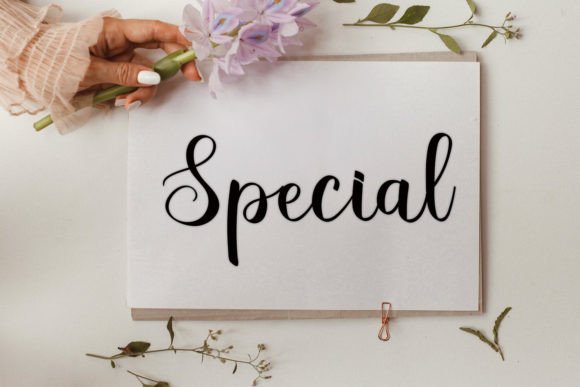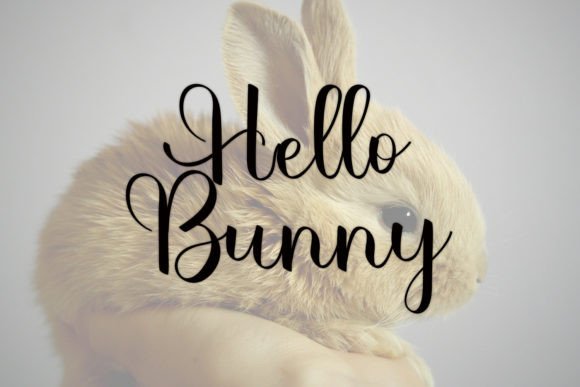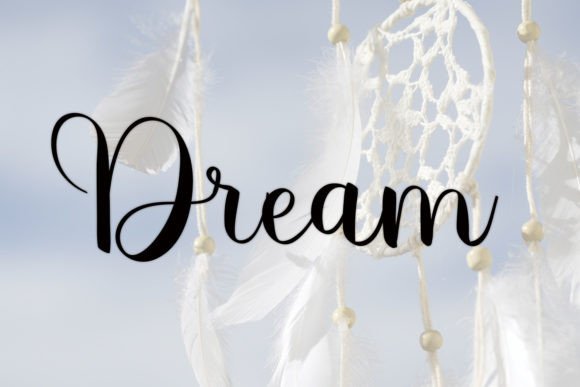
Dolly Font: The Fresh and Beautiful Choice for Your Design Needs
In the world of design, a font can make all the difference in creating a visually appealing and effective visual identity. If you’re a designer, crafter, or DIY enthusiast looking for a fresh and beautiful font to elevate your projects, look no further than Dolly Font. In this article, we’ll explore the features and benefits of Dolly Font, and how it can be used to create stunning designs for various purposes.
What is Dolly Font?
Dolly Font is a modern and elegant font designed to meet the needs of designers, crafters, and DIY enthusiasts. Its fresh and beautiful style makes it perfect for a wide range of design purposes, including YouTube banners, cover logo mockups, wedding invitations, ID cards, flyers, crafts, and more.
Key Features of Dolly Font
- Unique and Elegant Style: Dolly Font boasts a unique and elegant style that sets it apart from other fonts. Its clean lines, subtle curves, and balanced proportions make it perfect for creating visually appealing designs.
- Versatile and Flexible: Dolly Font is designed to be versatile and flexible, making it suitable for various design purposes, from digital to print.
- Easy to Read: The font is optimized for readability, ensuring that your text is clear and easy to read, even at small sizes.
- High-Quality Design: Dolly Font is crafted with attention to detail, ensuring a high-quality design that will elevate your projects.
Uses of Dolly Font
Dolly Font is perfect for a wide range of design purposes, including:
- YouTube Banners: Create eye-catching YouTube banners that showcase your brand’s personality and style.
- Cover Logo Mockups: Design stunning cover logo mockups that showcase your brand’s logo in a beautiful and elegant way.
- Wedding Invitations: Create beautiful and elegant wedding invitations that set the tone for the special day.
- ID Cards: Design professional and stylish ID cards that make a great impression.
- Flyers: Create eye-catching flyers that promote your business, event, or cause.
- Crafts: Use Dolly Font to create beautiful and unique crafts, such as handmade cards, gift tags, and more.
Benefits of Using Dolly Font
By using Dolly Font, you can:
- Elevate Your Designs: Add a touch of elegance and sophistication to your designs.
- Stand Out from the Crowd: Use a unique and fresh font that sets you apart from others.
- Save Time: Use a high-quality font that saves you time and effort in designing.
- Enhance Your Brand: Create a consistent visual identity for your brand that reflects its personality and style.
In conclusion, Dolly Font is a fresh and beautiful font that is perfect for designers, crafters, and DIY enthusiasts looking to elevate their designs. With its unique and elegant style, versatility, and high-quality design, Dolly Font is suitable for a wide range of design purposes. Whether you’re creating YouTube banners, cover logo mockups, wedding invitations, ID cards, flyers, crafts, or more, Dolly Font is the perfect choice. So why wait? Download Dolly Font today and take your designs to the next level!